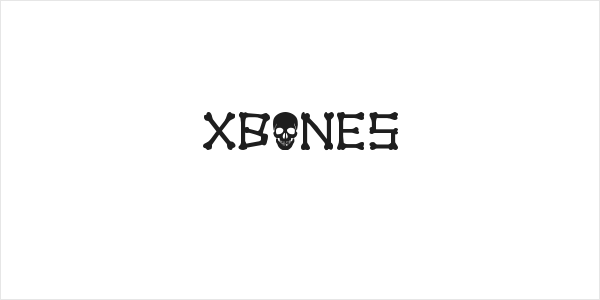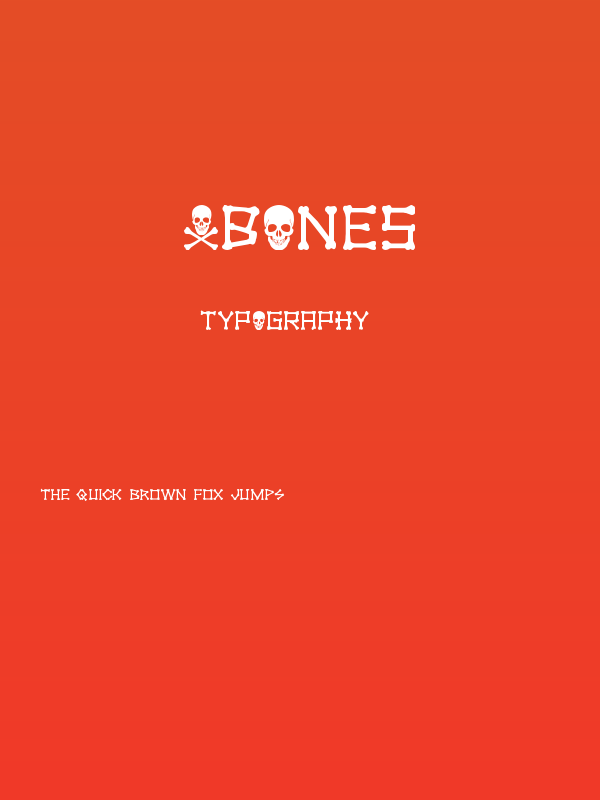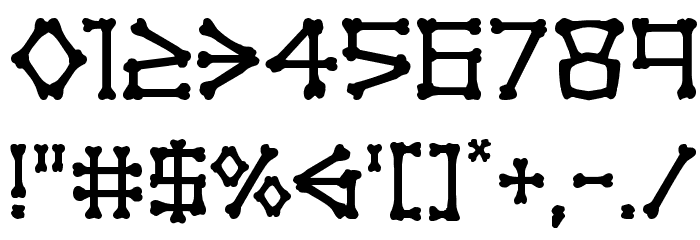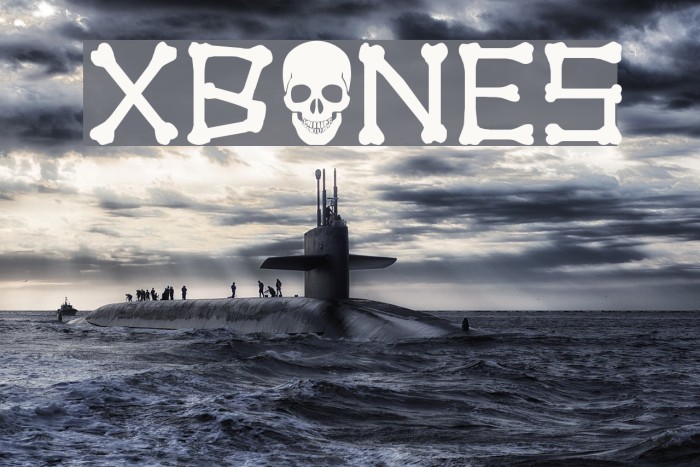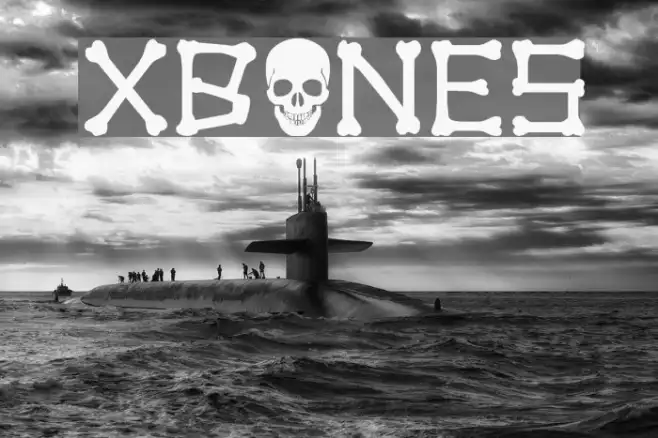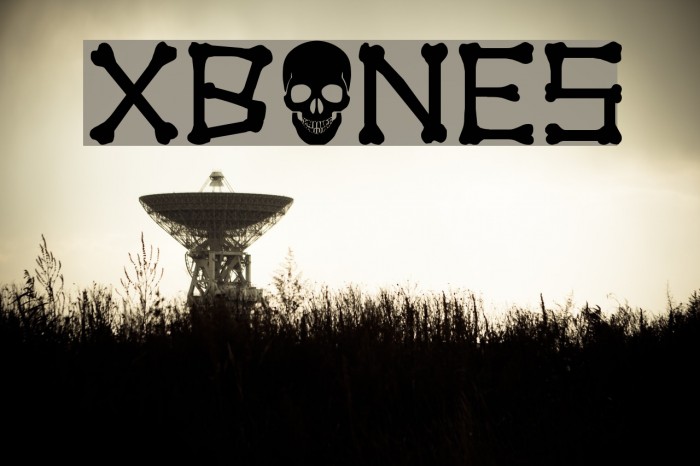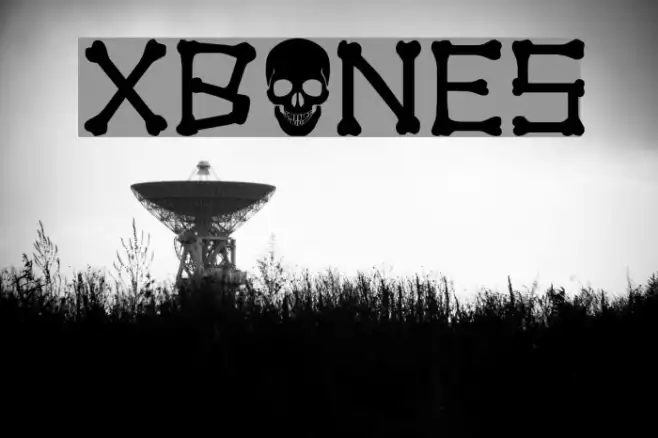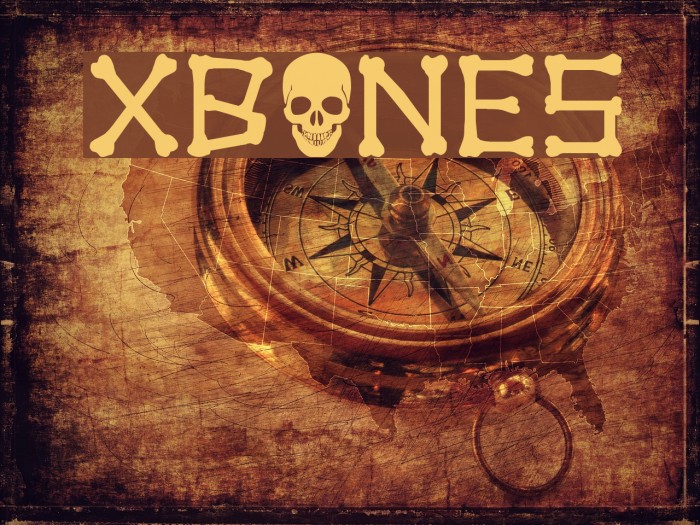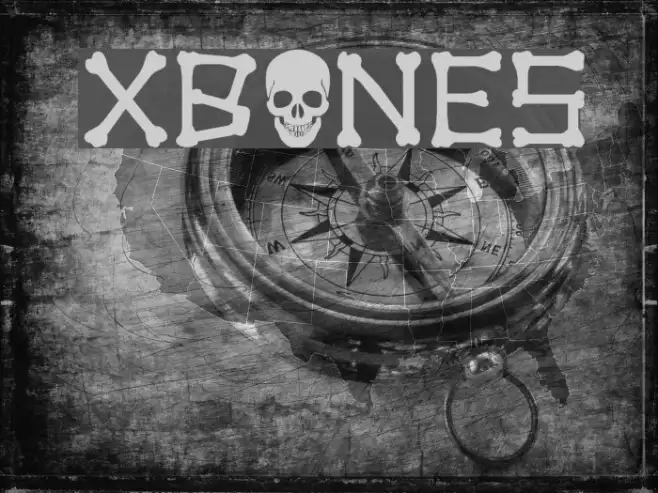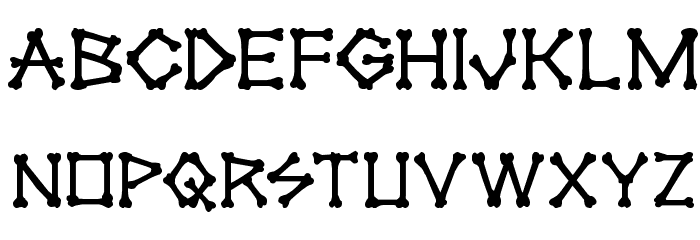
xBONES Font
xBONES Description
This font features a unique and playful design that mimics the appearance of bones. Each character is constructed with lines that resemble skeletal structures, giving it a distinct and spooky aesthetic. The uppercase and lowercase letters maintain a consistent style, with a slightly irregular and organic form that enhances the bone-like appearance. The numbers and special characters follow the same theme, ensuring a cohesive look across all glyphs. This font is perfect for Halloween-themed projects or any design that requires a touch of the macabre.
| Proposed Projects | Ideal for Halloween invitations, horror movie posters, themed party decorations, and spooky merchandise designs. |